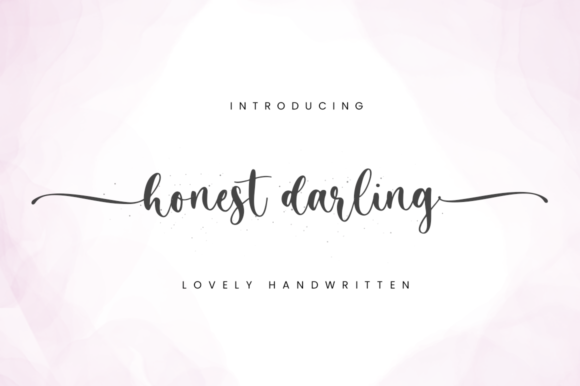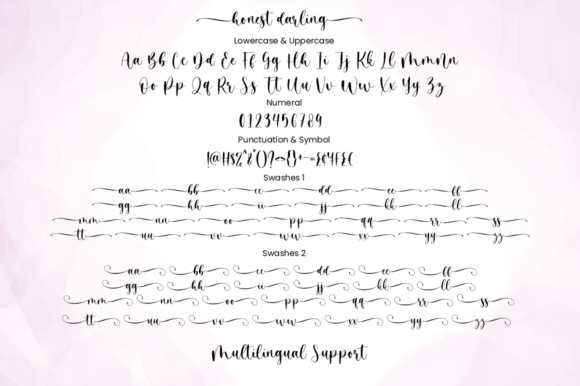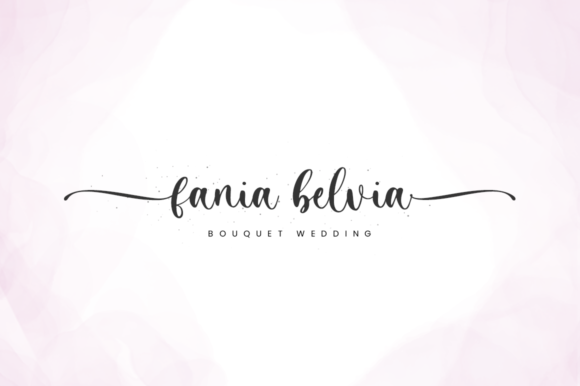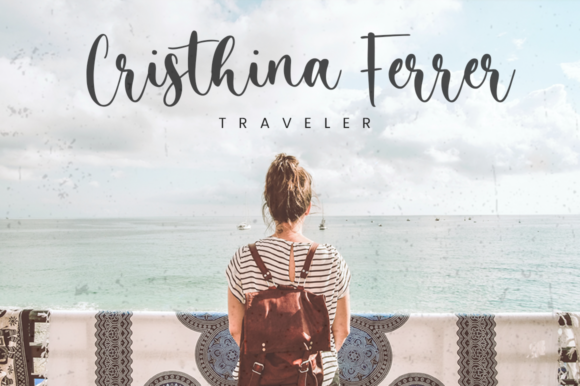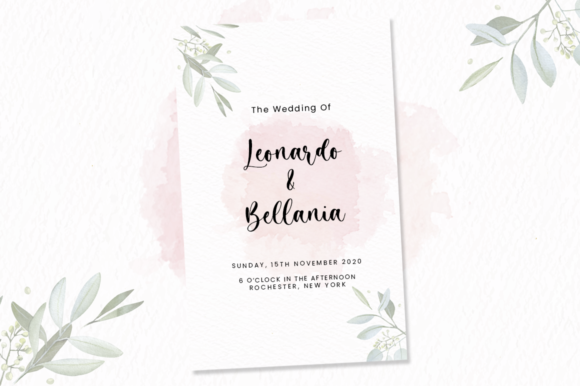
About Honest Darling Font
Honest Darling is a beautiful calligraphy font defined by a romantic touch. It is ideal for crafting, branding, invitations, stationery, wedding designs, social media posts, advertisements and so much more! This font is PUA encoded which means you can access all of the glyphs and swashes with ease!